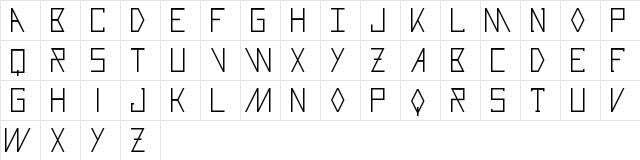
Razorblade Regular Free Font
Razorblade Regular
Designer: GeronimoFonts
Design Context for Razorblade
Razorblade is a composed and adaptable typeface that performs quietly and consistently across a wide range of design contexts.
Pro Tip: Use Razorblade in both headline and body roles to test its range before committing to a single application.